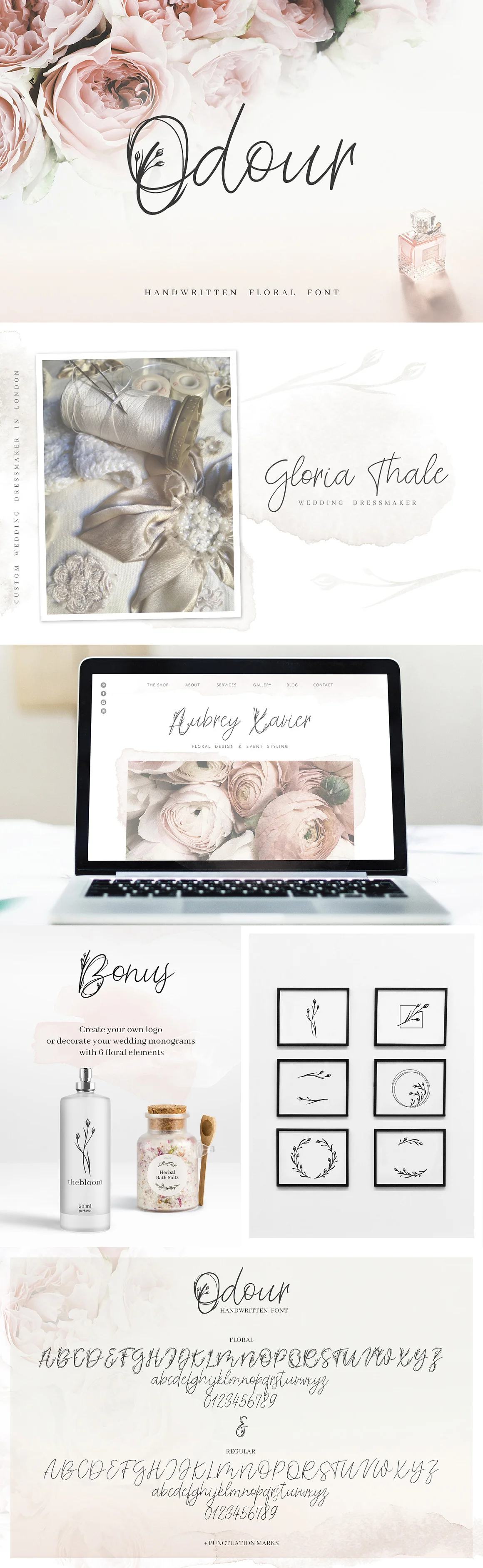
Odour. Spring Botanical Font
Odour. Spring Botanical Font is perfect for organic skincare branding, botanical illustration projects, herbal tea packaging, garden center materials, natural perfume labels, eco-friendly product lines, wellness spa communications, floral design studios, aromatherapy branding, sustainable fashion labels, nature-inspired magazines, and spring seasonal campaigns.
What makes Odour. Spring Botanical Font exciting is its enchanting connection to nature that captures the delicate beauty of spring blooms and botanical fragrance through gracefully organic letterforms. This captivating typeface embodies the essence of natural awakening and aromatic discovery, combining flowing curves with nature-inspired details that evoke the sensory richness of blooming gardens and fragrant botanicals. The font's organic character and gentle sophistication make it ideal for brands that celebrate the healing power of nature and the intimate relationship between scent, beauty, and wellbeing. Its aromatic personality creates immediate emotional connection with audiences seeking authentic natural experiences and holistic lifestyle choices.
The Odour. Spring Botanical Font family includes regular and ornamental styles, featuring floral alternates, botanical ligatures, and spring-inspired decorative elements. The character set incorporates leaf motifs, aromatic symbols, and nature-themed numerals that enhance the font's botanical character and provide designers with comprehensive natural design solutions perfect for seasonal applications.
Whether you're creating natural beauty brands, designing botanical marketing materials, or developing aromatic product communications, Odour. Spring Botanical Font provides the organic elegance your nature-inspired projects require. This premium typeface excels in applications where natural authenticity and sensory appeal are essential for connecting with wellness-conscious consumers and eco-friendly audiences. The font's botanical qualities work beautifully across packaging, digital platforms, and print applications, making it an essential tool for designers creating memorable natural brand experiences. Organic companies and wellness brands choose this font for its ability to communicate natural purity while maintaining commercial appeal and professional standards. The comprehensive character set supports multiple languages while preserving its distinctive botanical aesthetic perfect for international natural product applications. Professional designers appreciate its versatility in creating cohesive natural brand systems that honor botanical heritage and sustainable values. When you implement this exceptional typeface in your natural communications, you're selecting a typography solution that celebrates botanical beauty and aromatic experiences, ensuring your brand connects with audiences seeking authentic natural products and sensory wellness in today's synthetic world while maintaining the organic credibility essential for success in natural beauty and wellness industries that prioritize environmental consciousness and holistic living.